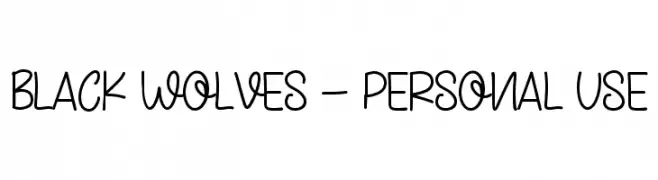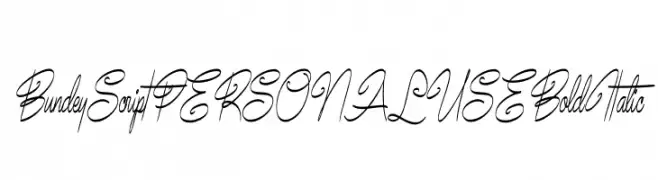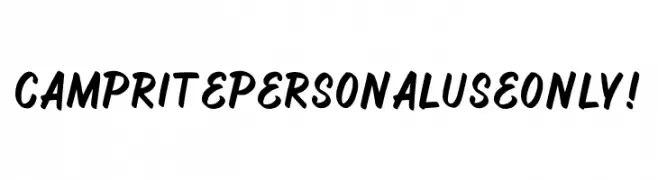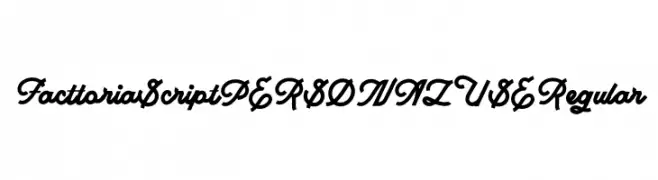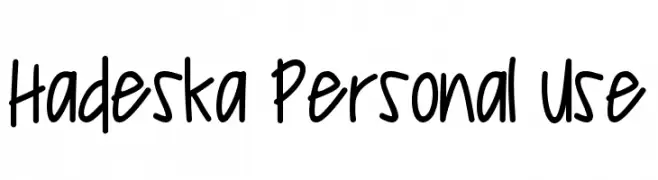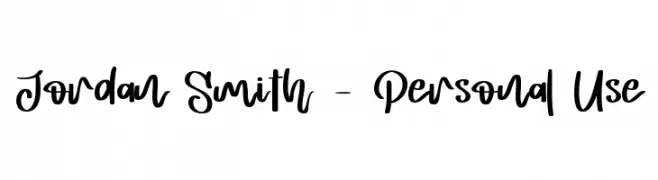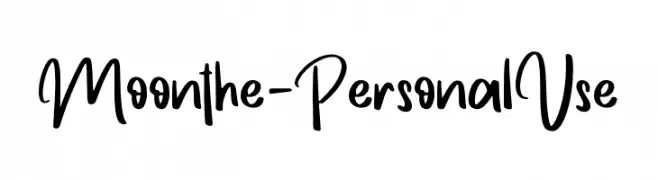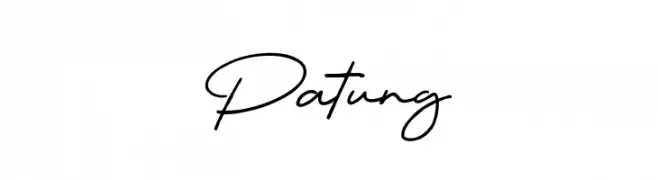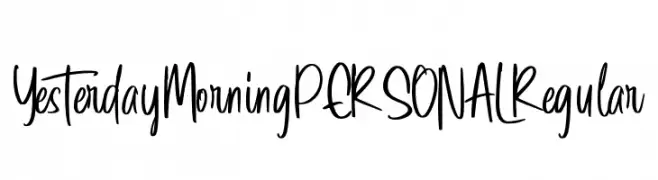
A bold, italic script font with elegant, flowing cursive letters.
A bold, cursive script font with elegant, flowing characters.
A delicate, elegant handwritten font with flowing, connected letterforms.
A playful, handwritten font with tall, narrow letters and a dynamic style.
A bold, expressive script font with a lively, handwritten style.
A playful, casual handwritten font with smooth, flowing lines and consistent stroke width.
A fluid, elegant handwritten font with a natural, personal touch.
A playful, casual handwritten font with smooth, rounded lines.
A bold, dynamic script font with a handwritten style.